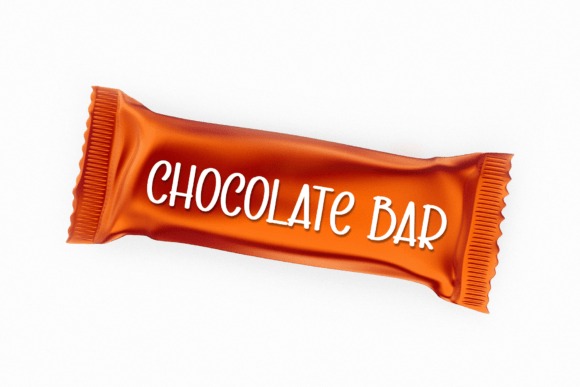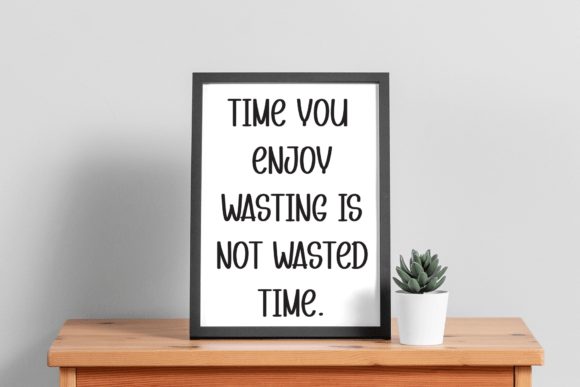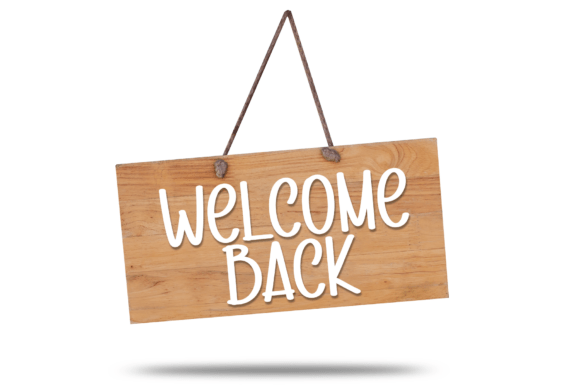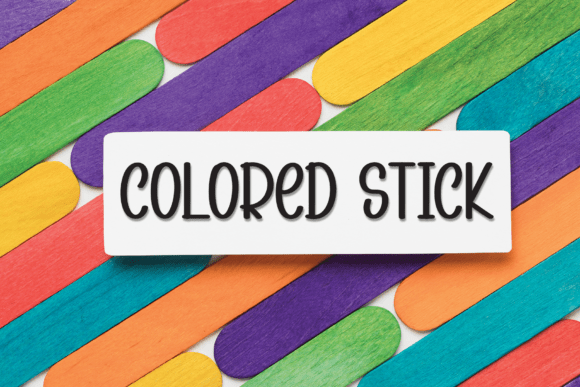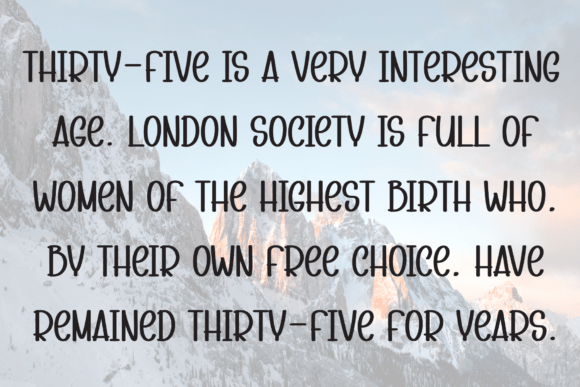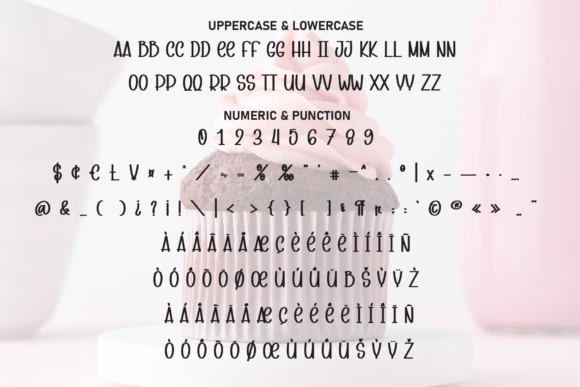
Introduction to Modern Cupcake Font
Have you ever stared at a blank design canvas, feeling like something is missing to bring your creative project to life? It’s in those moments of inspiration drought that the perfect font can be a game-changer. For designers, finding the right font can elevate a design from ordinary to extraordinary. And, for those who’ve been searching for the perfect script to add a touch of whimsy to their work, the Modern Cupcake Font is about to become your new best friend.
This beautiful, hand-penned display typeface is a high-quality design resource that’s sure to delight. With its transparent background and free download availability, it’s the perfect addition to any creative project. Whether you’re working on a love-infused wedding invite or a touchingly sincere greeting card, the Modern Cupcake Font is sure to add a unique and delightful touch.
Key Features of Modern Cupcake Font
- High-quality design with transparent background, ideal for creative projects
- Features a unique, modern aesthetic that is sure to elevate any design project
- Includes a comprehensive character set, including uppercase and lowercase letters, numbers, and punctuation marks
- Designed to be highly legible, even at small font sizes, making it perfect for use in headings and titles
Honest Review: Modern Cupcake Font
I recently came across the Modern Cupcake Font, and I must say it’s a delightful addition to any design project. As a designer, I appreciate high-quality fonts that can elevate a creative project to the next level. This font is no exception.
- Unique and playful design: The Modern Cupcake Font has a charming, whimsical feel that’s perfect for bakery or dessert-themed projects.
- Transparent background: This allows for easy layering and blending with other design elements.
While the Modern Cupcake Font is a great resource, it’s not without its limitations. The font is primarily designed for display purposes, so it may not be the best choice for body text.
Overall, I’m impressed with the Modern Cupcake Font. It’s a high-quality design resource that can add a touch of creativity to any project. With its unique design and transparent background, it’s a great addition to any designer’s toolkit. If you’re looking for a fun and playful font for your next design project, the Modern Cupcake Font is definitely worth checking out.
The Modern Cupcake Font is suitable for a wide range of creative projects, including branding, packaging design, and social media graphics. Its modern and elegant style makes it an excellent choice for designers seeking a high-quality design resource.